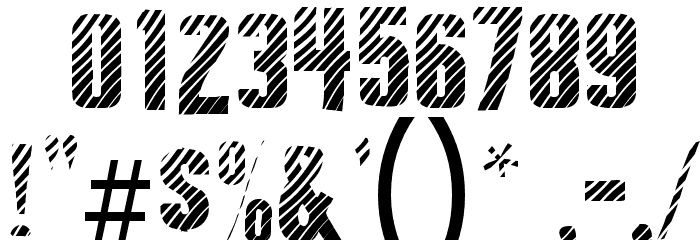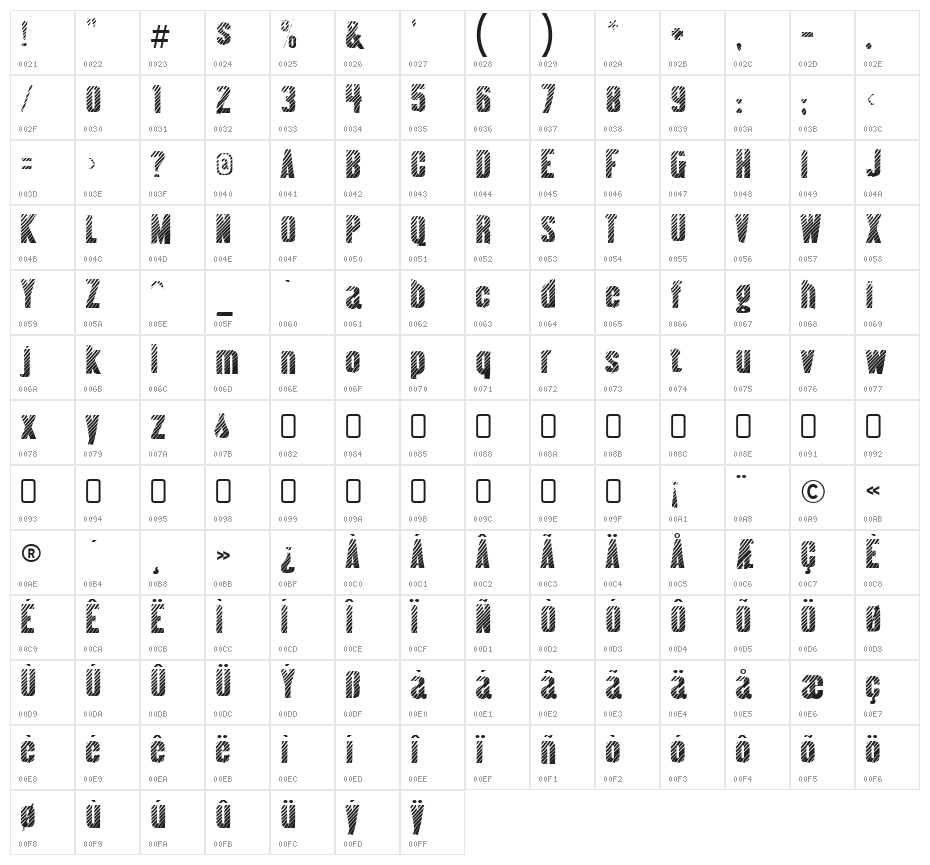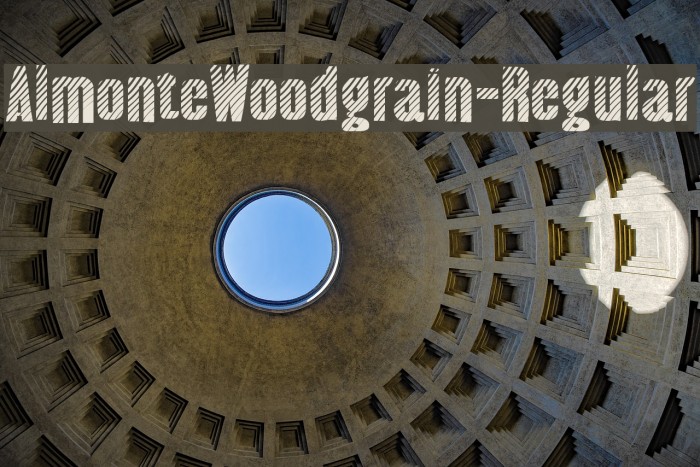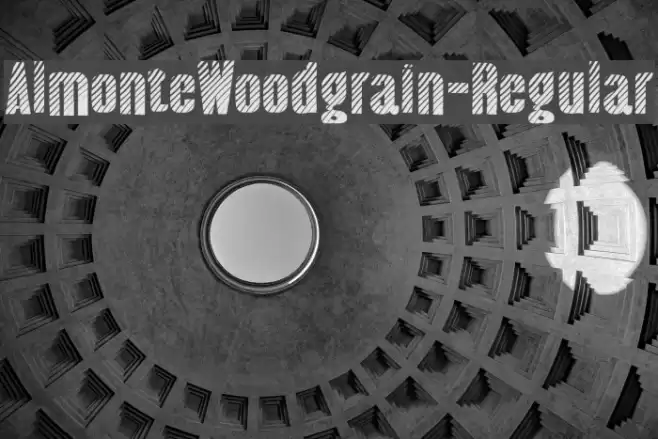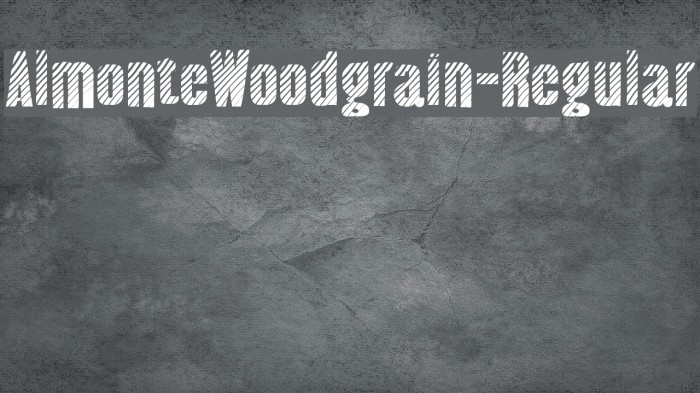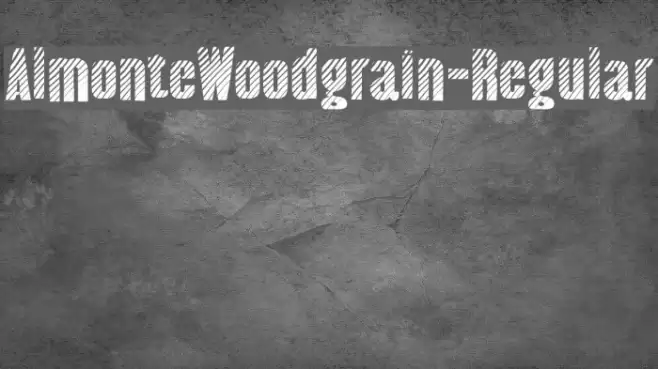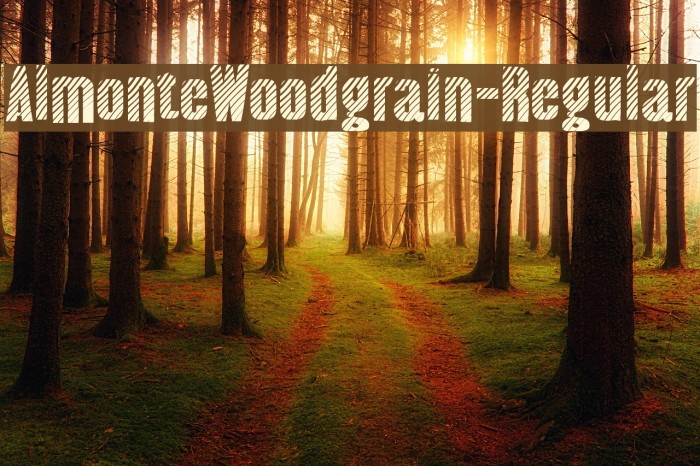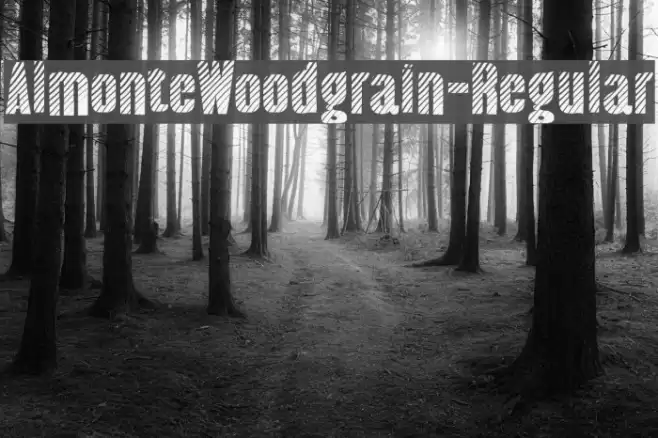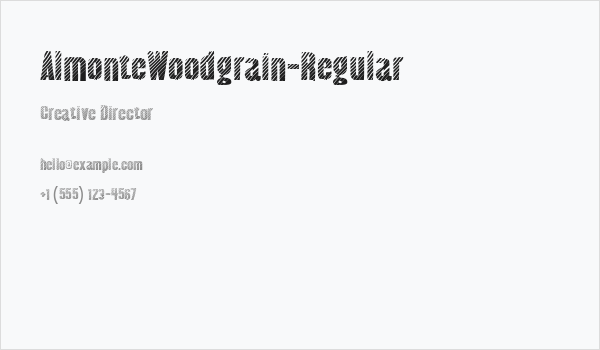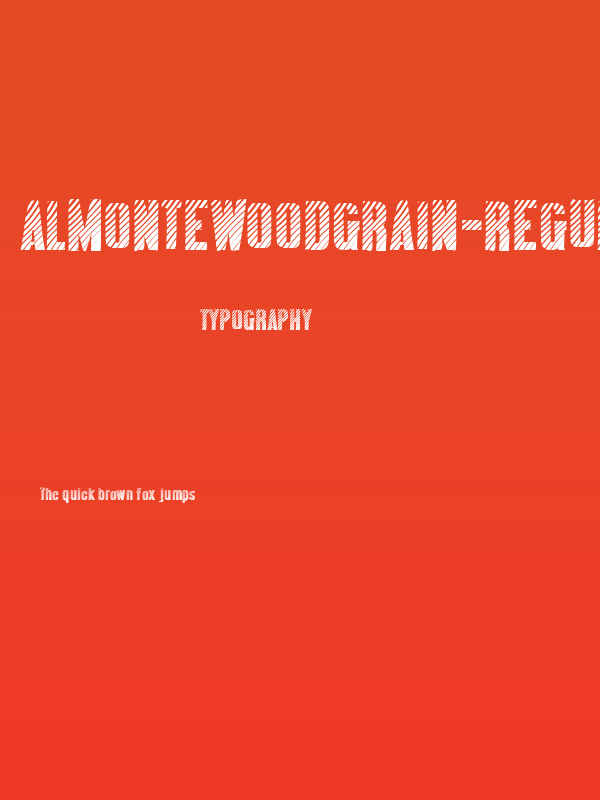
AlmonteWoodgrain-Regular Font
AlmonteWoodgrain-Regular Description
This font features a bold, decorative style with a woodgrain texture that runs diagonally across each character. The uppercase and lowercase letters are distinct, with a strong presence and a unique pattern that adds depth and visual interest. The numbers and special characters maintain this textured appearance, making the font suitable for creative and eye-catching designs. The overall design is modern yet rustic, combining a sense of natural texture with a contemporary edge.
Overall StyleModern, Rustic
Proposed ProjectsIdeal for branding, posters, and packaging design where a rustic or natural theme is desired.